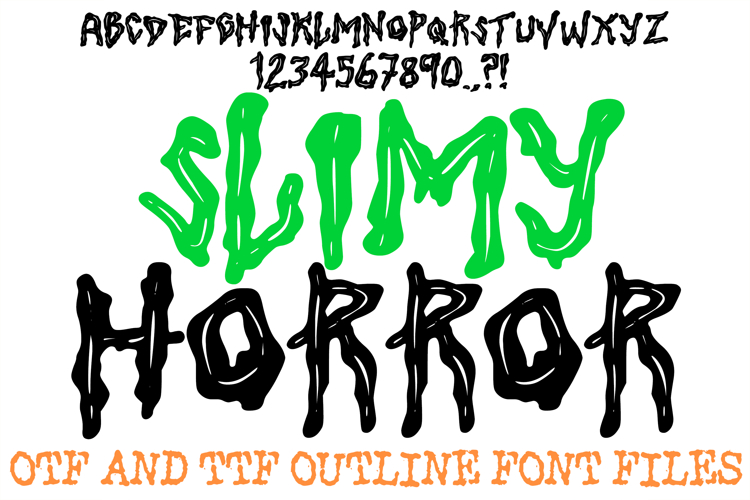
The Slimy Horror Font is a spine-chilling, ultra-viscous display typeface engineered to bring a thrilling sense of dread and excitement to your designs. Featuring raw, trembling letterforms completely wrapped in oozing, fluid layers, this typeface is a premier choice for designers working on Halloween party invitations, horror movie posters, spooky graphic novel titles, video game interfaces, and edgy alternative streetwear.
The design captures an organic, mutating energy where each character looks as though it were dripping with freshly uncovered toxic waste or monstrous sludge. Its irregular stroke widths and chaotic, melting perimeters inject an instant B-movie horror aesthetic into any layout. Whether you are building an identity for a haunted attraction or designing high-impact headlines for a dark-fantasy project, this font provides an unsettling yet highly creative look that commands attention.
Why Your Designs Will Stand Out
Oozing Liquid Textures: The fluid, unstable outlines give the impression of continuous, creeping movement, making your text feel alive and dangerous.
Gritty Horror Vibe: Perfectly tailored for eerie or aggressive themes—from classic monster aesthetics to modern survival-horror game branding.
High-Impact Display Weight: The thick, dramatic forms ensure excellent presence on the page, keeping headers prominent even against busy or dark backgrounds.
Rebellious Distorted Forms: The intentionally imperfect, hand-drawn architecture completely rejects clean geometry to deliver an authentic, counter-culture edge.